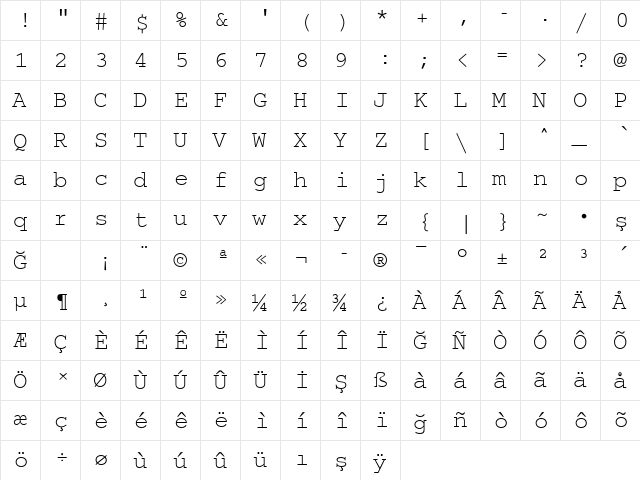
Courier2 Normal
Design Context for Courier2 Typeface
Courier2 brings the precise, column-aligned rhythm of monospaced typography to designs that value technical clarity and systematic order.
Pro Tip: Use Courier2 with slightly increased line-height for extended reading — fixed-width spacing can feel dense in longer passages without extra breathing room.